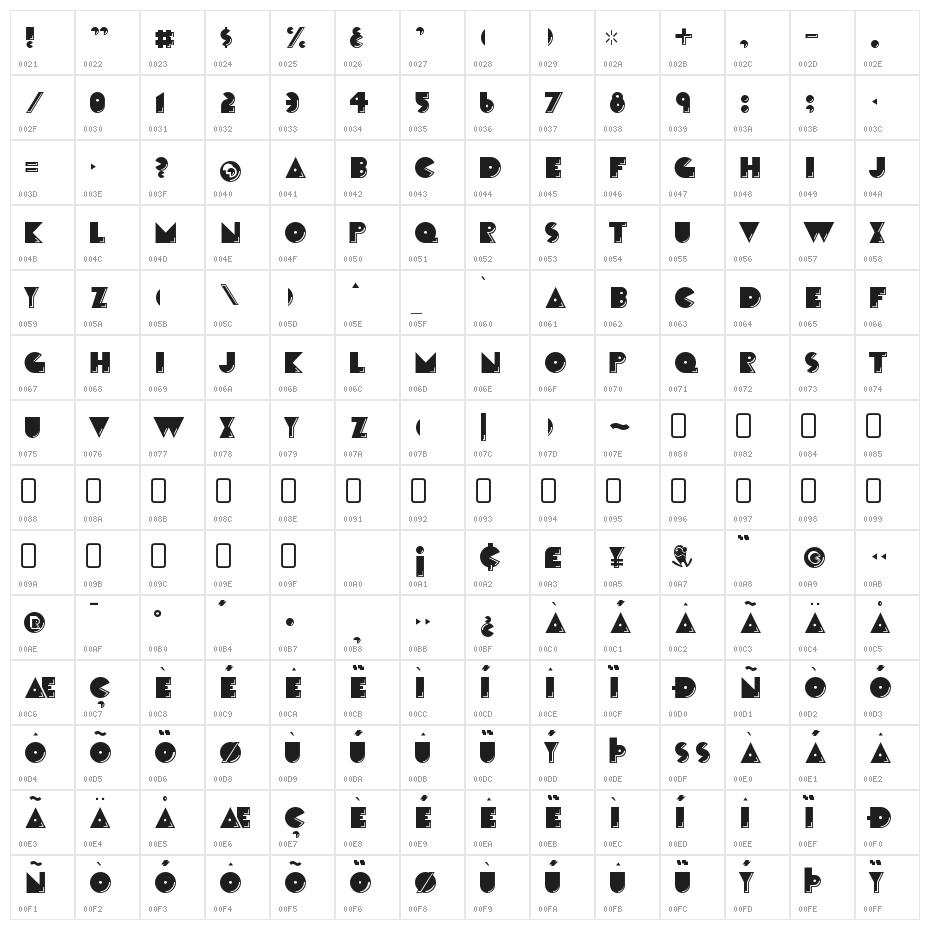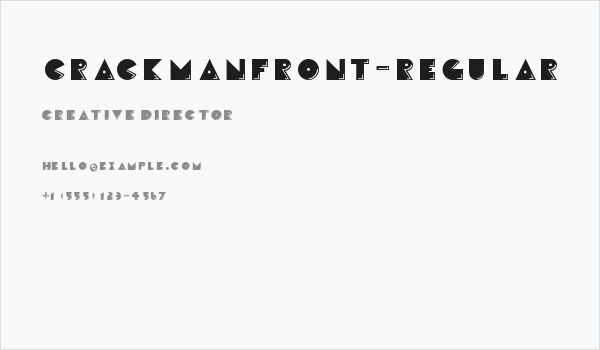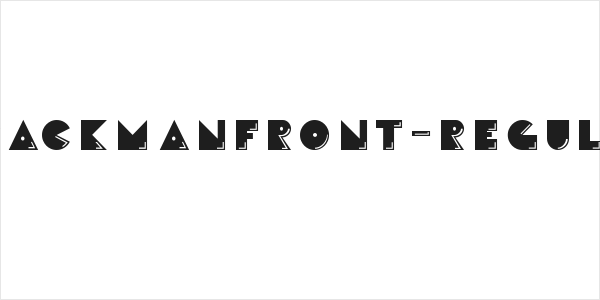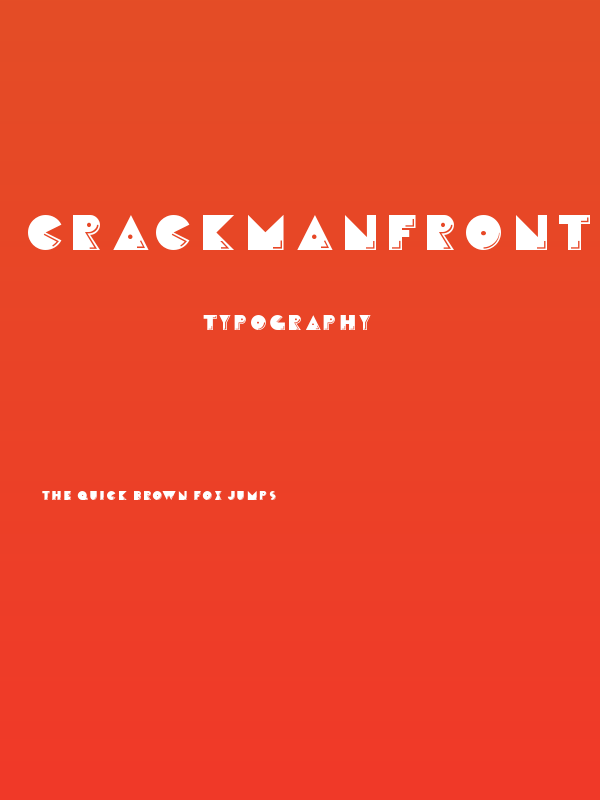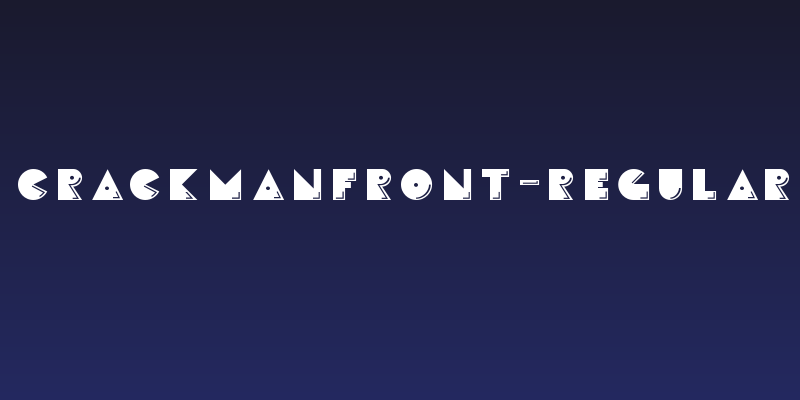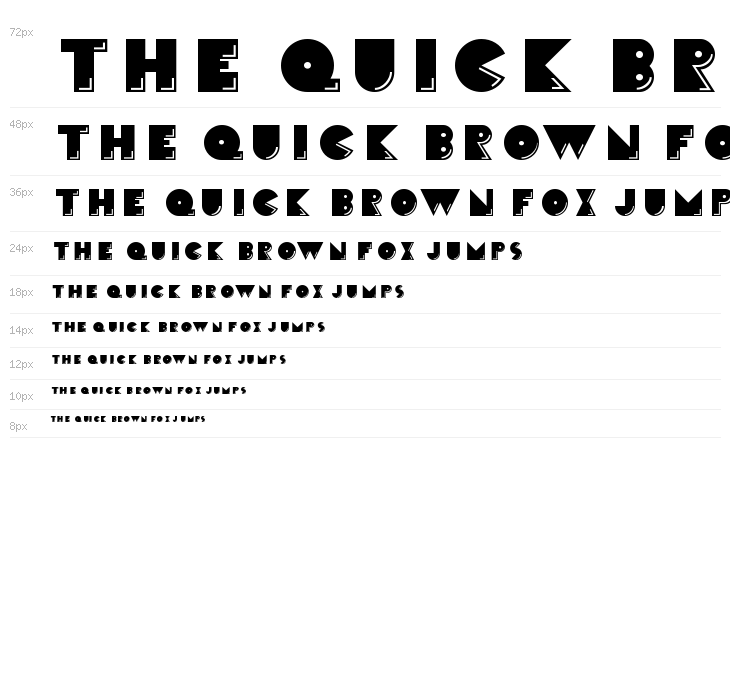
CrackManFront-Regular Font
CrackManFront-Regular Description
This font features a bold and playful design with geometric shapes and cut-out elements that give it a unique, eye-catching appearance. The characters are constructed with solid fills and sharp angles, creating a dynamic and energetic look. The uppercase and lowercase letters maintain a consistent style, with the lowercase mirroring the uppercase in form. Numbers and special characters are designed with the same boldness and playful cut-outs, ensuring a cohesive look across all glyphs. This font is ideal for projects that require a fun and modern aesthetic.
Proposed ProjectsIdeal for posters, children's books, video game graphics, and playful branding.